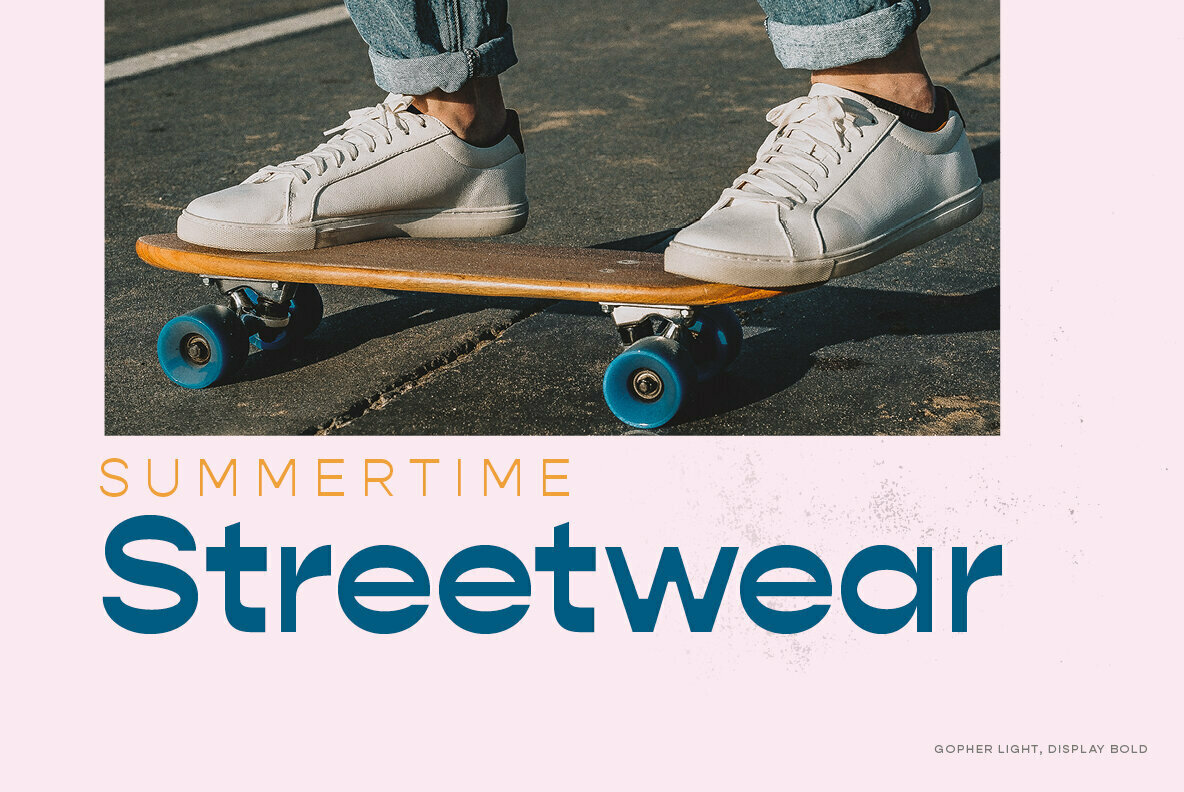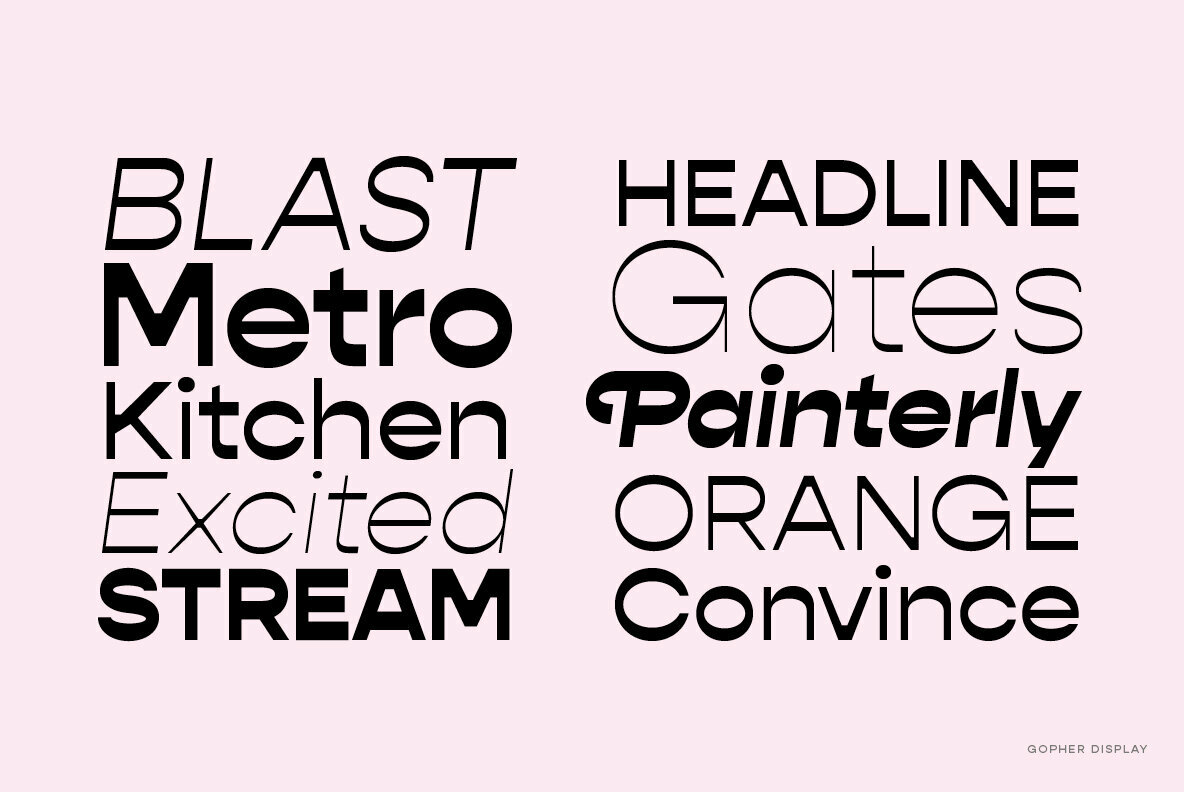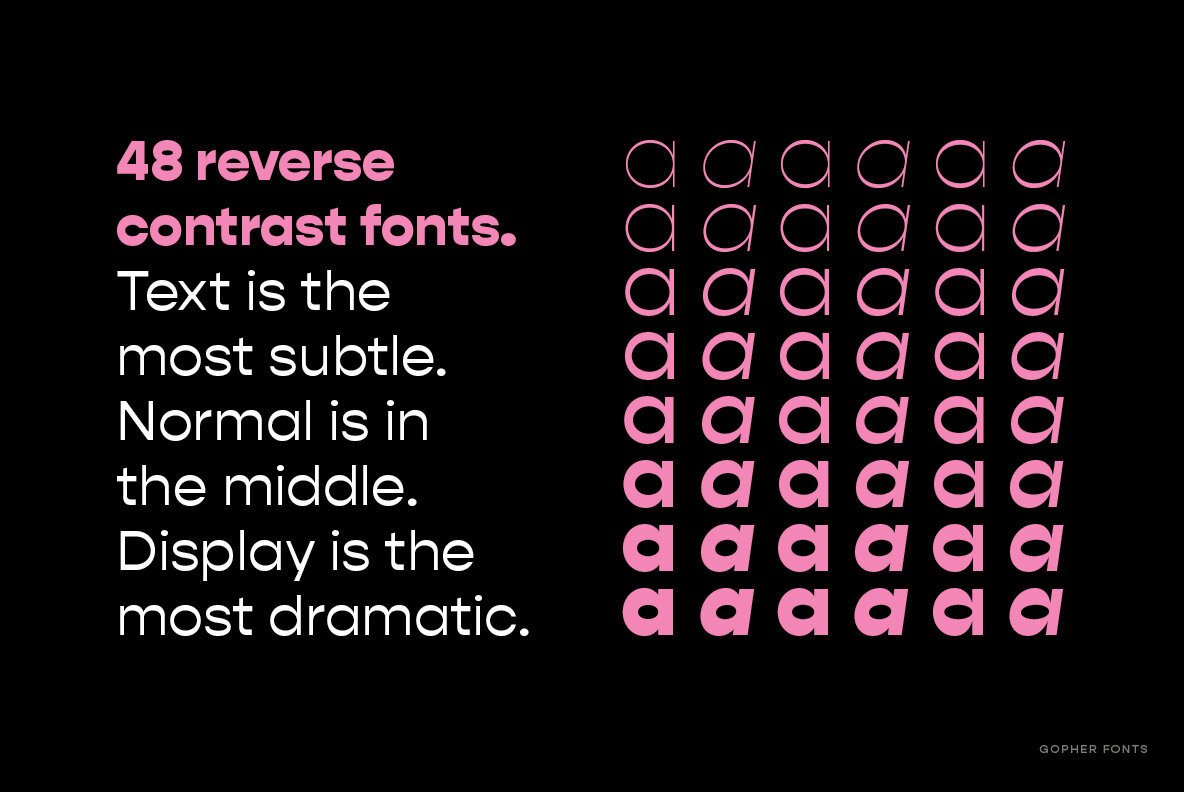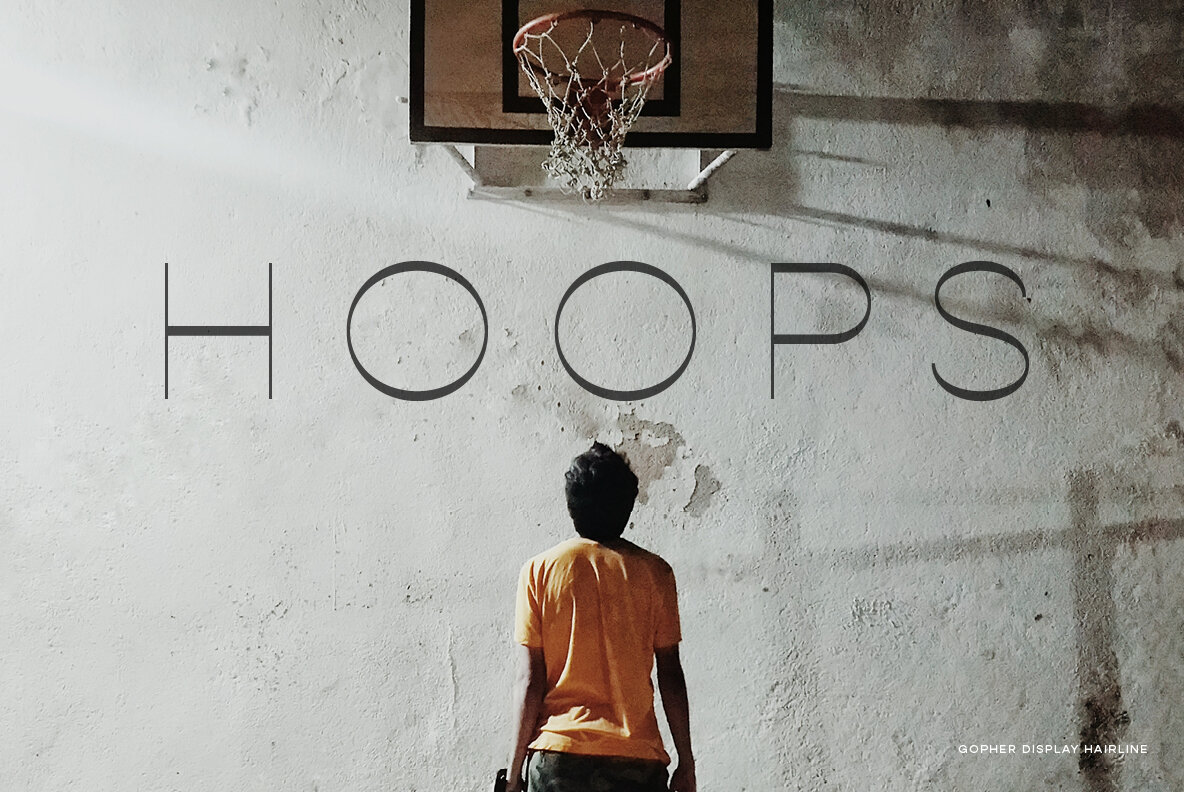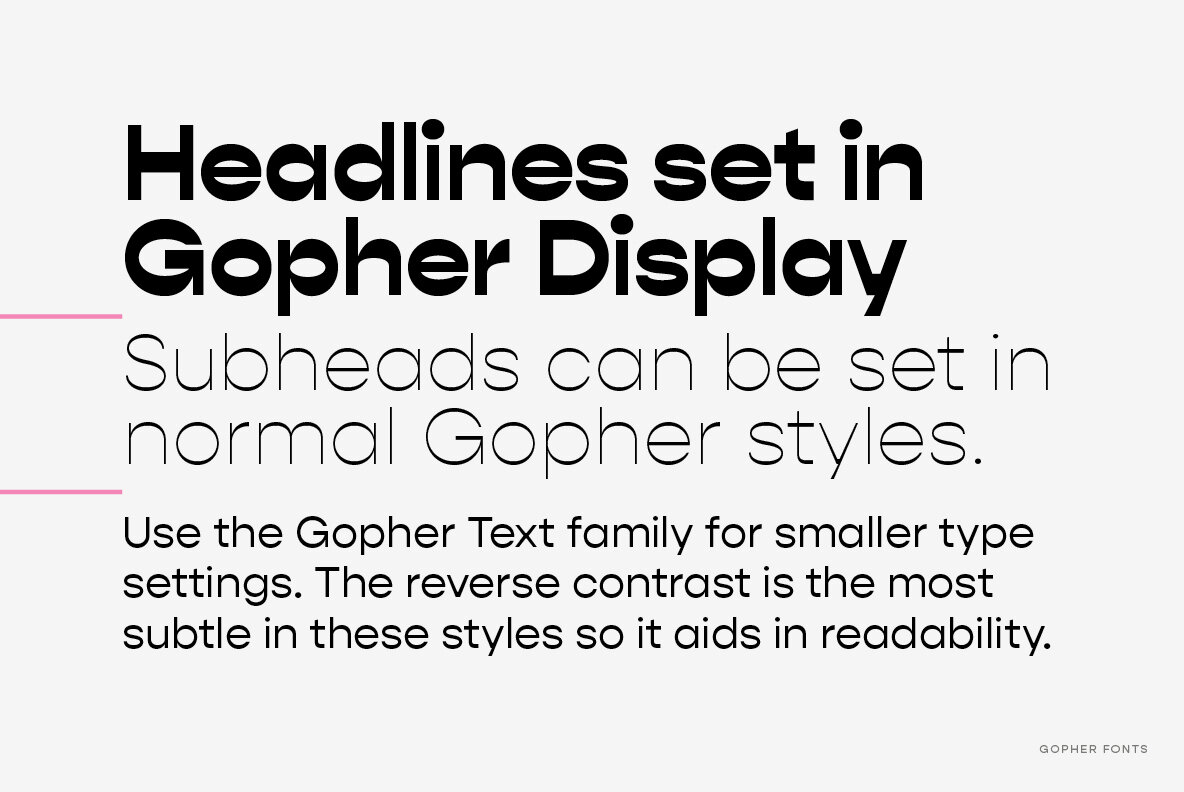
Gopher Font
Gopher is a reverse contrast, geometric sans serif typeface with Normal, Text, and Display families. The 48 included fonts in the complete family range from hairline to heavy, with italics. A variation in the amount of contrast is what distinguishes the three separate families, while allowing them to still work in harmony together.
A typical contrast for typefaces is vertical (sides and stems are thicker and the horizontal tops and bottoms are thinner), but Gopher provides a unique look to the geometric sans genre by switching that contrast so the sides are thinner and tops and bottoms thicker. This approach was the most tricky to design in characters that have diagonal strokes, like v and k, but also yielded interesting results.
Text styles have the most subtle reverse contrast so they work best in smaller type settings and adhere to conventions a bit more. Normal styles have a moderate contrast where the unique characteristics are more evident. Display styles are the most dramatic as the contrast has been pushed more to the extreme for an immediate visual impact.
With over 600 glyphs, this font has extensive Latin language support (100+ Latin languages) for Western, Central, and South Eastern European. Gopher will work great in a variety of settings for branding, advertising, posters, magazines, packaging, and more.